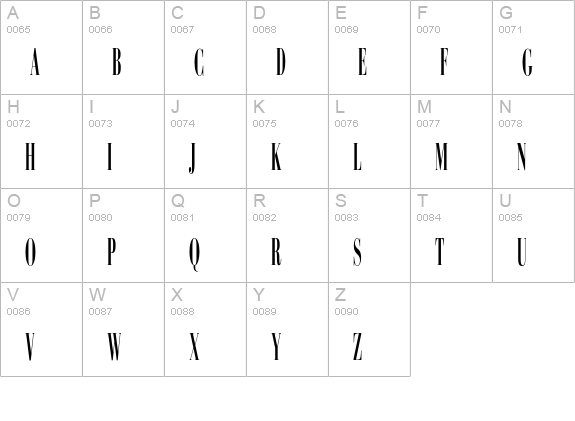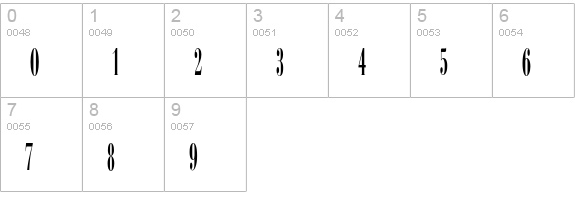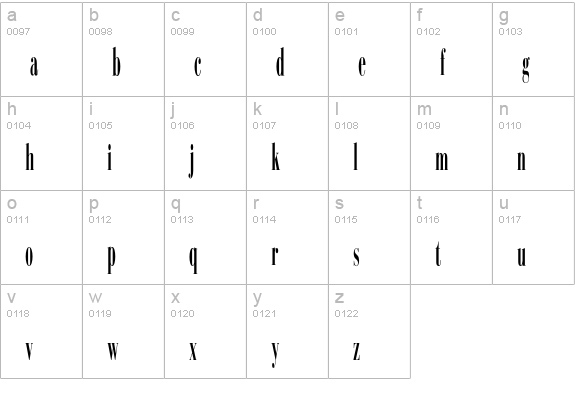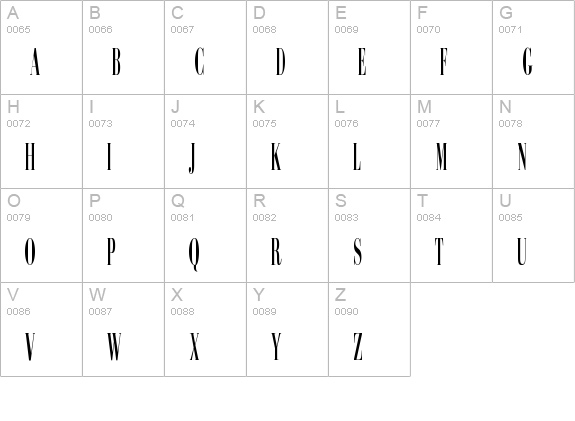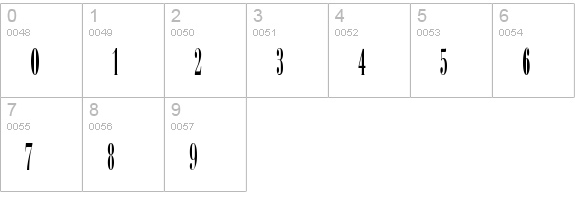
Campanile Font Details
Campanile font is a classic and elegant typeface that exudes sophistication and charm. Its tall, slender letterforms are inspired by traditional serif fonts, giving it a timeless and refined appearance. Perfect for adding a touch of class to any design project, Campanile font is versatile and easy to read, making it ideal for a wide range of applications. The best part? Campanile font is completely free to download at FontsMarket.com. Whether you're working on a professional project or simply looking to add a touch of elegance to your personal creations, this font is the perfect choice. Download Campanile font today and elevate your designs with its timeless beauty and grace.